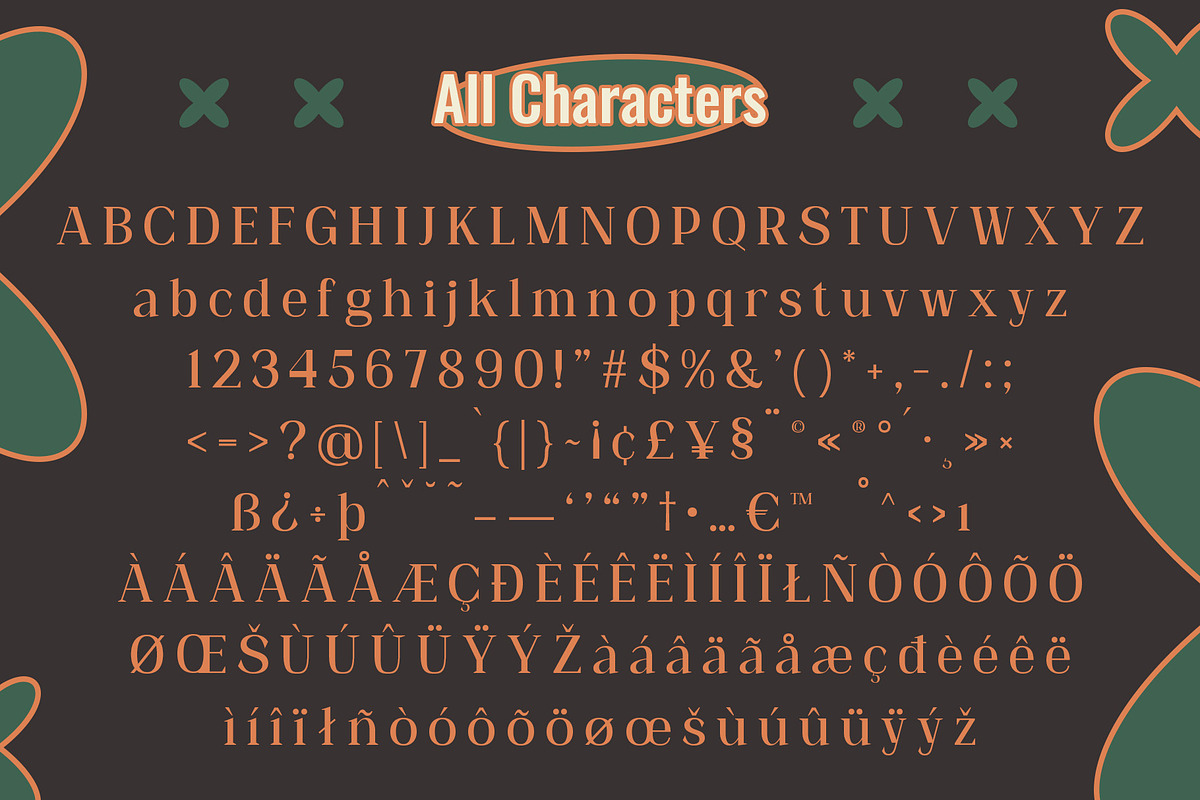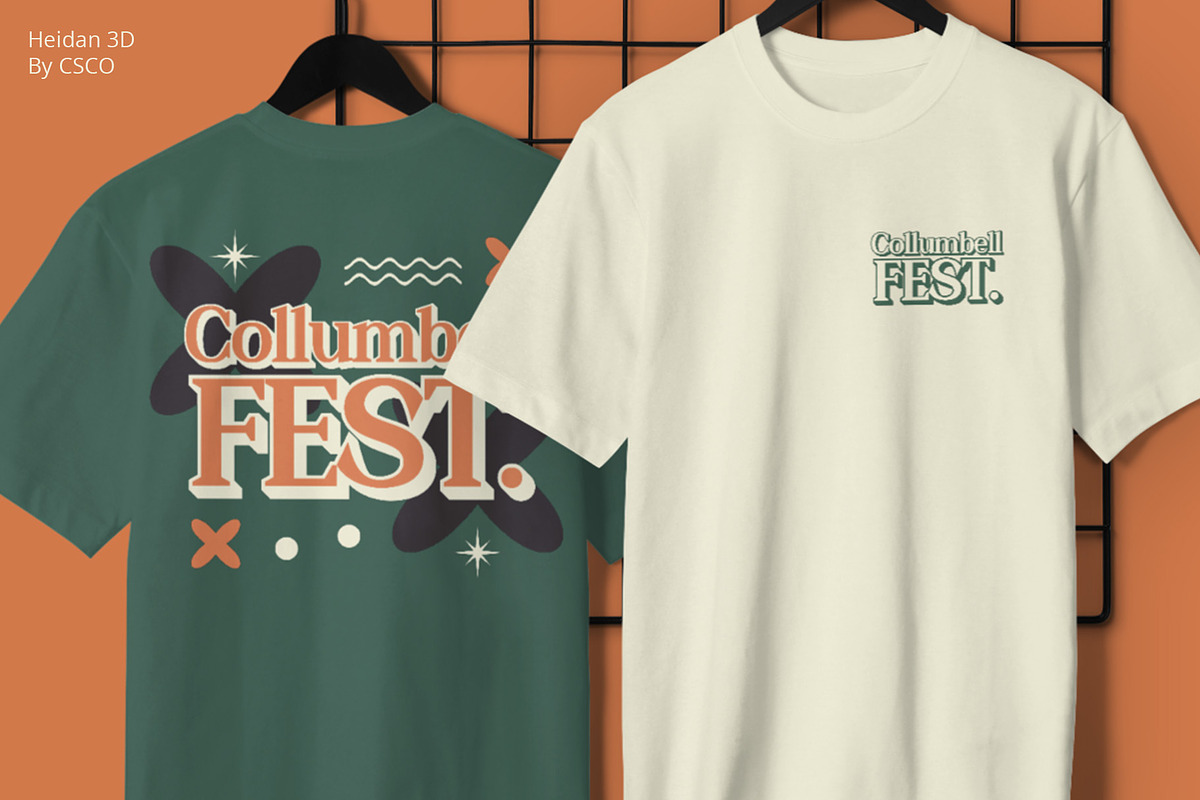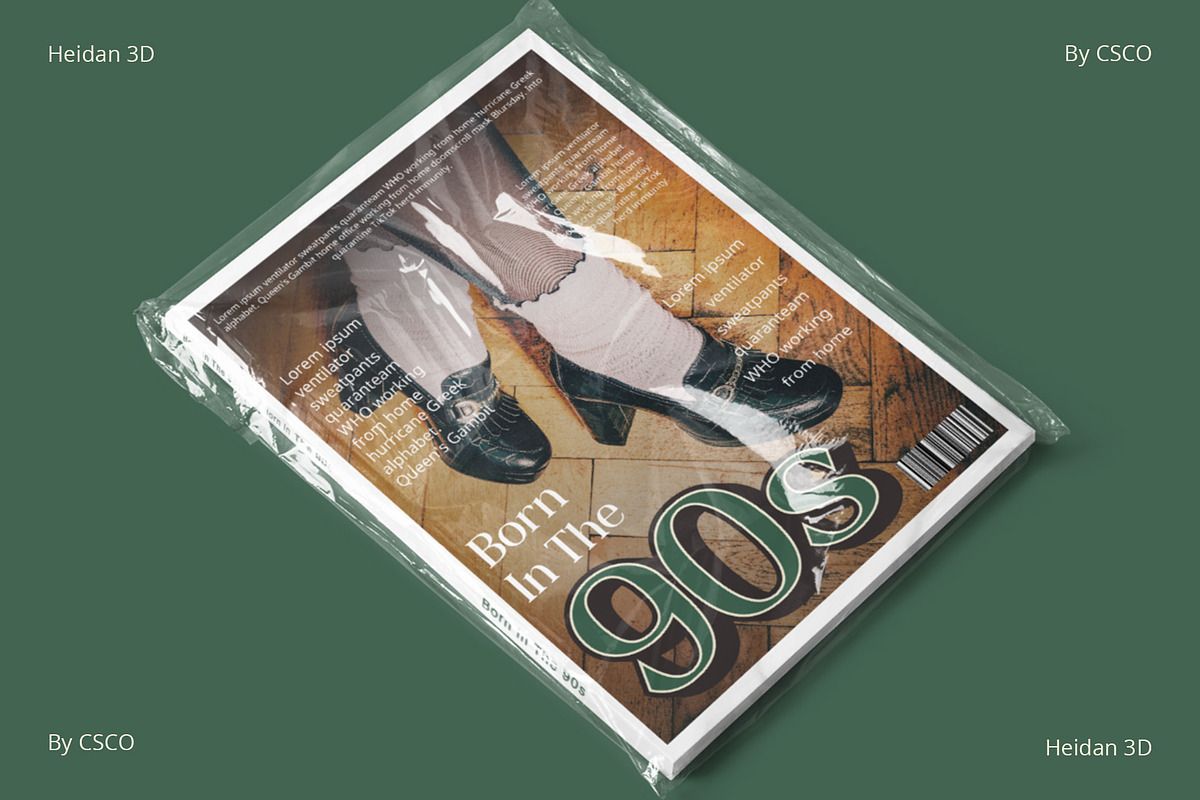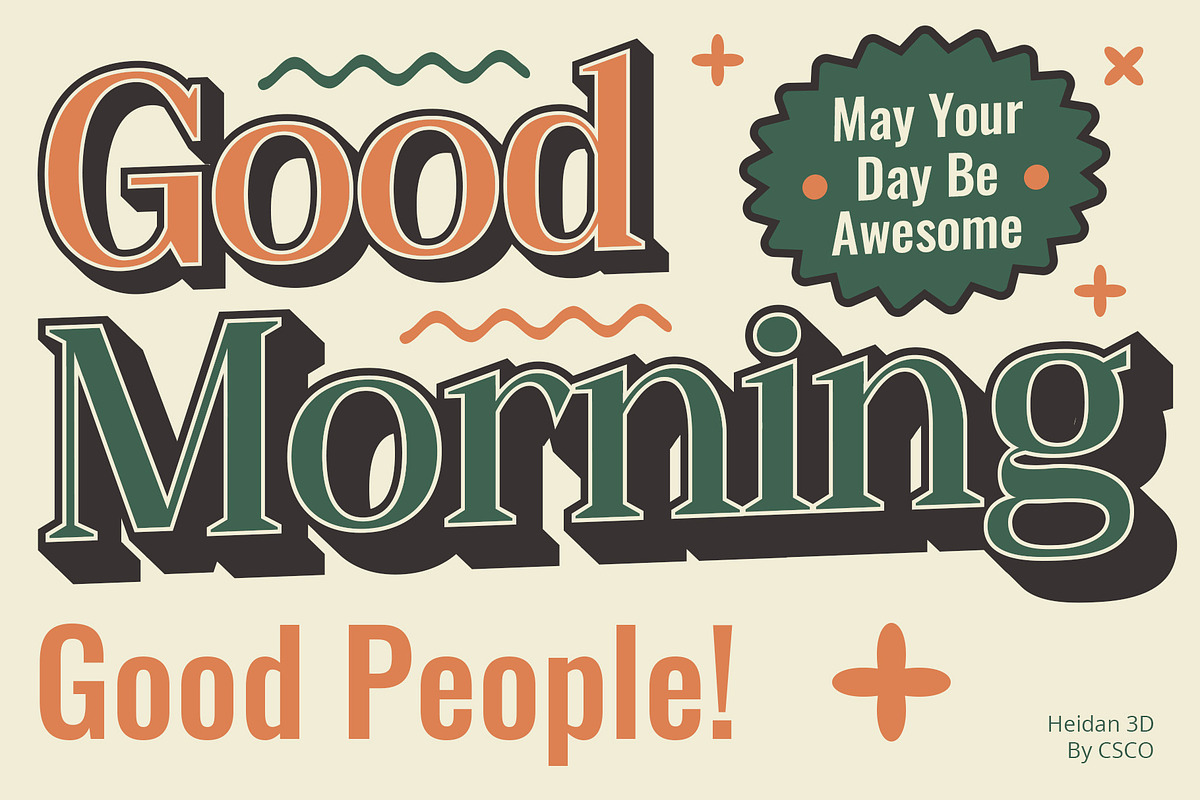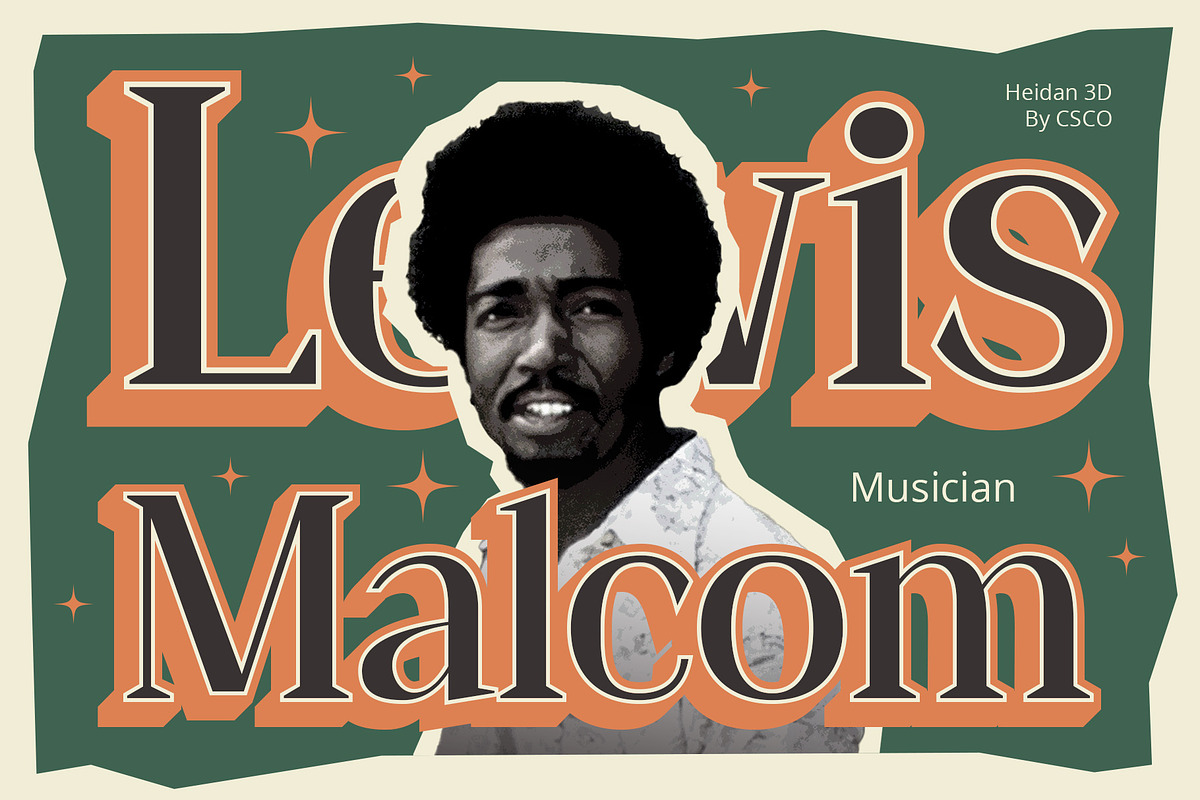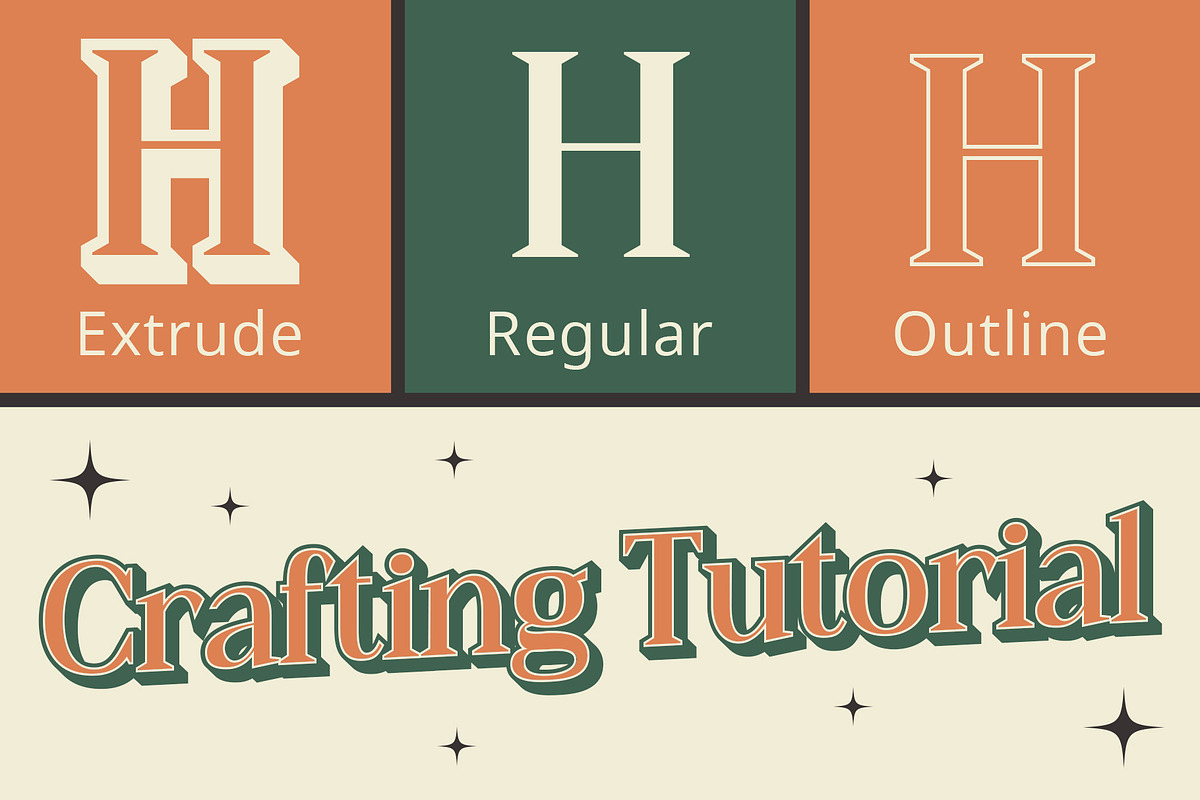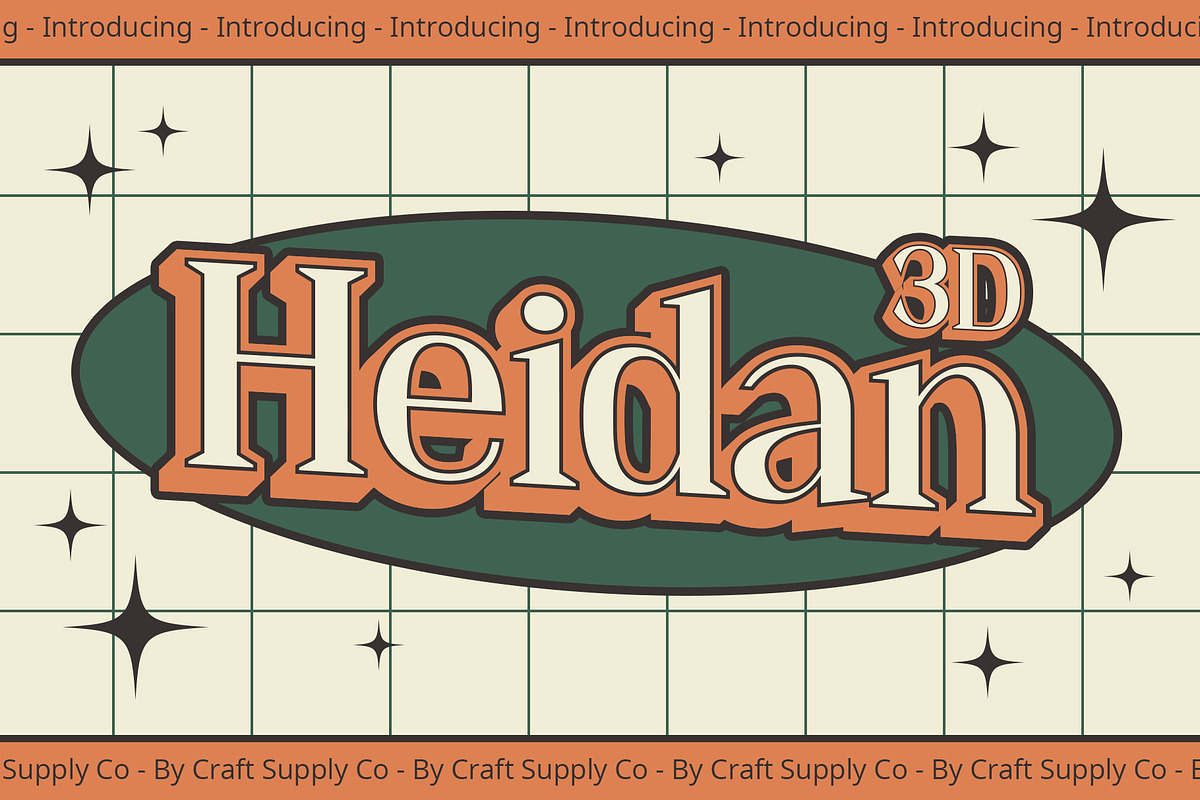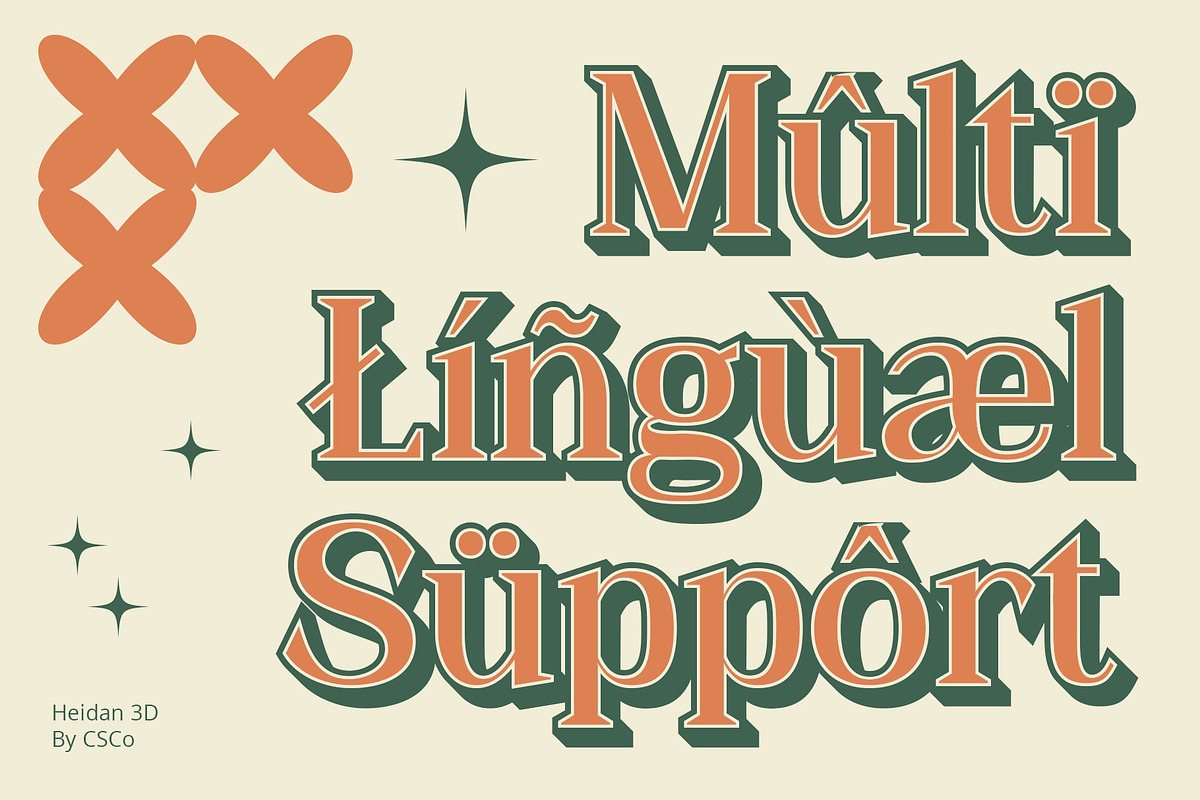
Heidan 3D
Heidan 3D Font: A Timeless Typeface Transformed
Classic Elegance Heidan 3D, a serif font renowned for its timeless elegance, seamlessly integrates tradition and modernity, offering a sophisticated touch to every character.
Depth and Definition Each letter of Heidan 3D is meticulously crafted, employing expertly applied extrude and outline effects that breathe life into the characters, creating a visually stunning three-dimensional masterpiece. The font transcends conventional design boundaries, adding depth and definition that captivates the viewer.
Versatile Readability Beyond its aesthetic allure, Heidan 3D prioritizes readability. Every character is thoughtfully designed to maintain optimal legibility, ensuring a seamless reading experience across diverse editorial contexts. This versatility makes Heidan 3D an ideal choice for a wide range of applications.
Tailored for Editorial Excellence Heidan 3D’s unique design, seamlessly combining classic serifs with contemporary 3D elements, creates a tailored typographic solution. This fusion makes it an exceptional choice for editorial projects, where it brings together the best of tradition and innovation, adding a touch of sophistication to your visual storytelling.
- Heidan Regular
- Heidan Outline
- Heidan Extrude Right
- Heidan Extrude Left